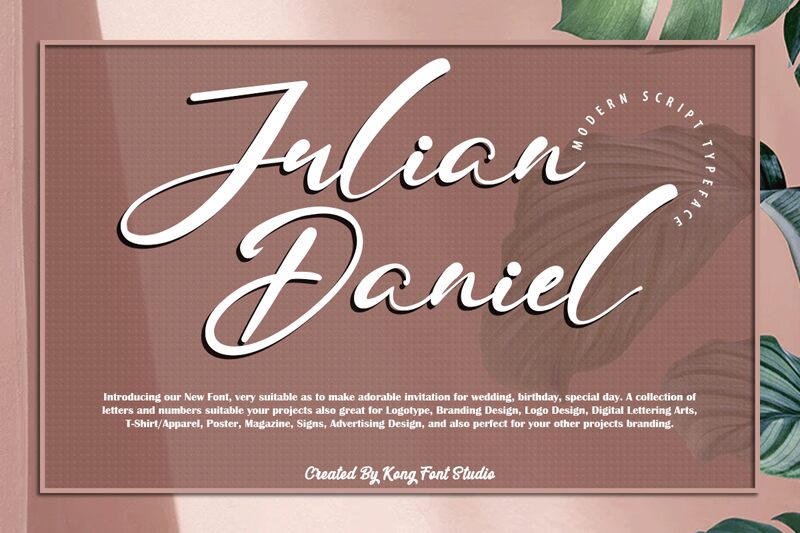
Julian Daniel
Julian Daniel, designed by Kong Font, is a modern calligraphy font with a light weight. Perfect for romantic wedding invitations, luxury packaging, and elegant branding projects.